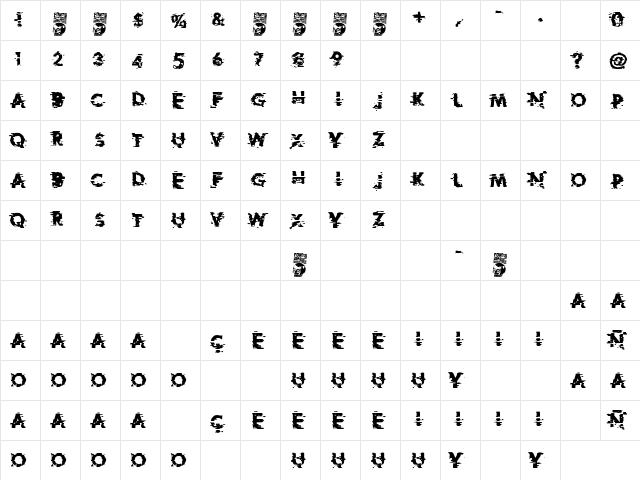
Extreme Glitch Regular
| Designer | Woodcutter Manero |
Design Context for Extreme Glitch Typeface
Extreme Glitch is a composed and adaptable typeface that performs quietly and consistently across a wide range of design contexts.